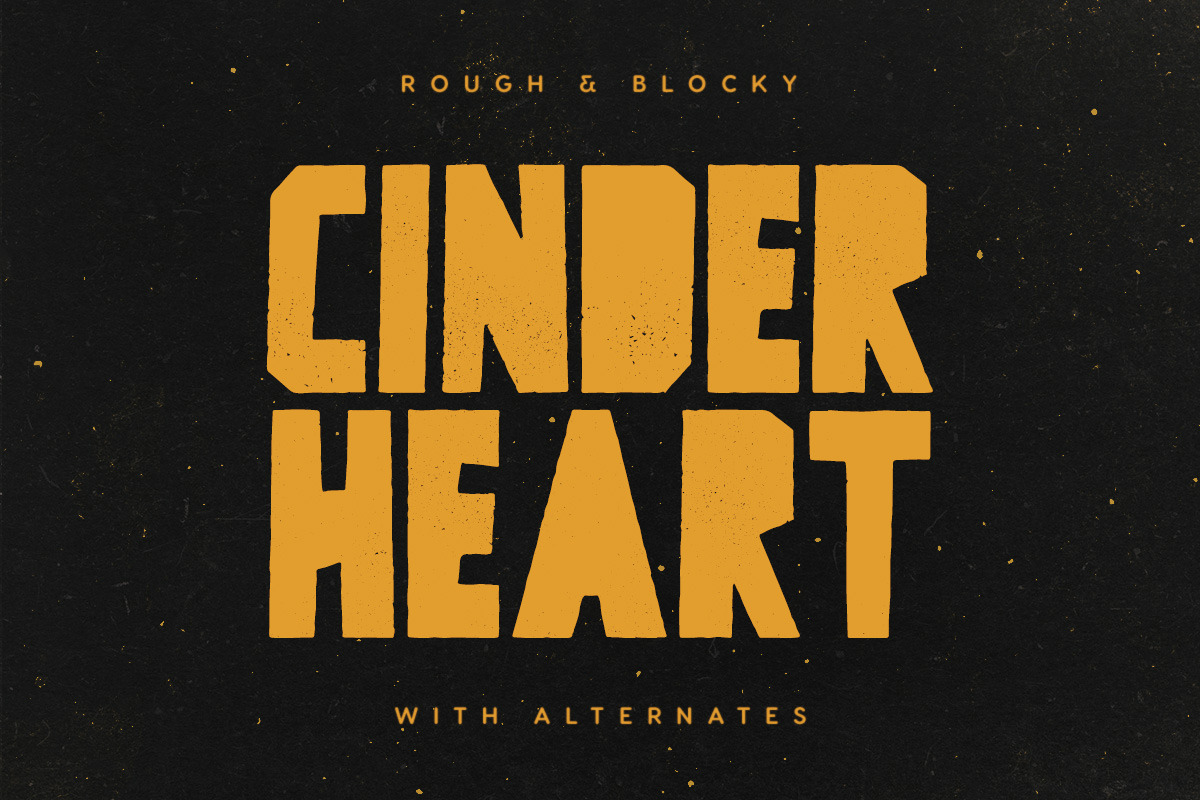
Cinderheart - A Rough & Blocky Font
Cinderheart is a display font with a rough outer texture and a subtle inner texture. It includes English uppercase letters, alternate letters, numbers and punctuation.